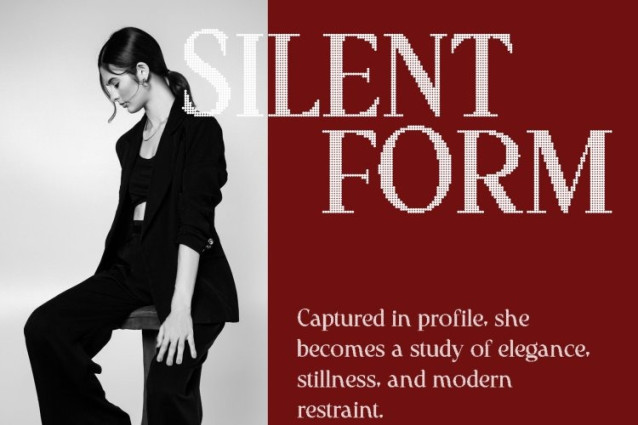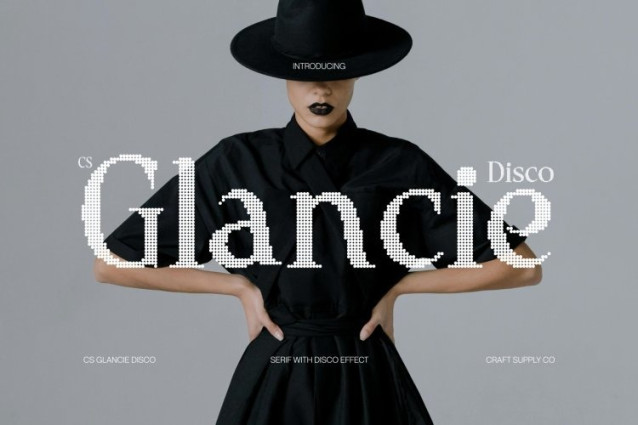
CS Glancie Disco Font
CS Glancie Disco Font This is a modern serif font that balances timeless elegance with a subtle disco attitude. Its refined serifs and well-measured proportions create a polished, professional foundation, while the disco influence adds a sense of glow and rhythm like elegance illuminated under shimmering lights. Every letter feels confident, stylish, and ready for the spotlight.
Elegant Details with Radiant Confidence
The structured serifs provide strength and authority, while smooth curves and graceful transitions introduce luxury and fluidity. Enhanced with a disco-inspired mood, the typography feels alive and expressive, carrying a refined glamour that reflects the energy of evening events, fashion runways, and sophisticated celebrations.
Perfect for Luxury Branding with Festive Flair
Designed for high-end branding, editorials, and premium visual identities, this font elevates typography into a statement of class and charisma. Ideal for logos, packaging, fashion campaigns, and magazine headlines, it adds a festive yet polished presence luxurious without excess, bold without losing elegance.
A Typeface with Soul, Shine, and Presence
More than a modern serif, this font captures the spirit of contemporary craftsmanship infused with nightlife charm. Its graceful rhythm and confident structure bring warmth and personality to professional design, making it perfect for creatives who want elegance, clarity, and a touch of glamorous disco energy in their visual communication.